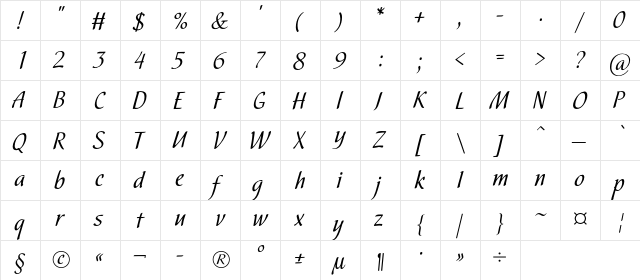
HortensiaC Regular Font Preview
HortensiaC Regular
Design Context for HortensiaC Typeface
HortensiaC takes a measured approach to typography — its balanced proportions and neutral character make it a reliable workhorse for both digital and print work.